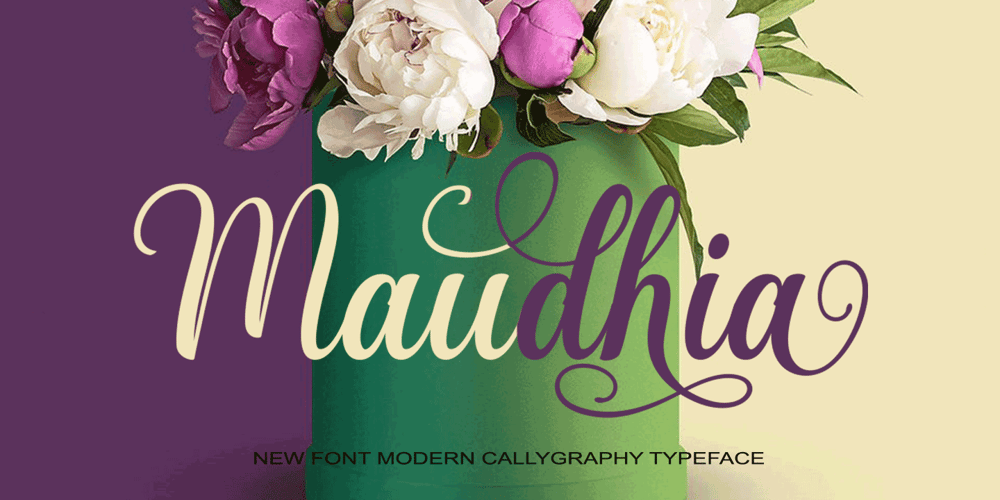
Maudhia Font Family was designed by Marwah and published by BBA Key. Maudhia contains 1 styles and family package options. Hello, all.I Want To Introduce New FontsMaudhia Script New fresh & modern style with handmade calligraphy, decorative characters and dancing lineage! So wonderful are invitations like greeting cards, branding material, business cards, quotes, posters, and more !!Maudhia Script The comes with 331 glyphs. Alternate characters are divided into several Open Type features such as Swash, Stylistic Sets, Stylistic Alternate, Contextual Alternate. Open Type features are accessible by using Open Type savvy programs such as Adobe Illustrator, Adobe InDesign, Adobe Photoshop Corel Draw X versions, and Microsoft Word. And this font has code PUA unicode (font with special code). So that all alternative characters can be easily accessed by craftsmen or designers.Maudhia ScriptUppercase & lowercase International signature & symbol Punctuation Support & PUA number Unicode Style Style Alternative Style Style Range 1-6 Contextual Character Variations.If you do not have programs that support OpenType features like Adobe Illustrator and CorelDraw X Versions, you can access all alternative flying machines using Font Book (Mac) or Character Map (Windows).Thanks and good luck :-)Thank you for buying!